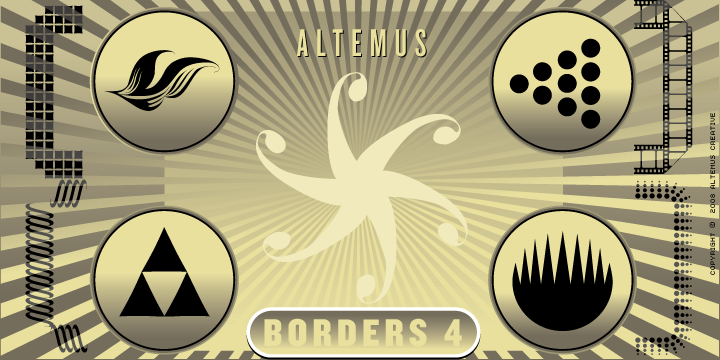
Altemus Borders Four
Design Credits
Designed by: Robert Altemus
Designed when: 1992
Design owned by: Altemus Creative
Altemus Borders Four
This font contains 174 characters; leaves, pointing hands, pinwheels, boomarangs, atoms, globes, saturn, rays, clocks, corners, ray bursts, checks, flourishes and filmstrips.